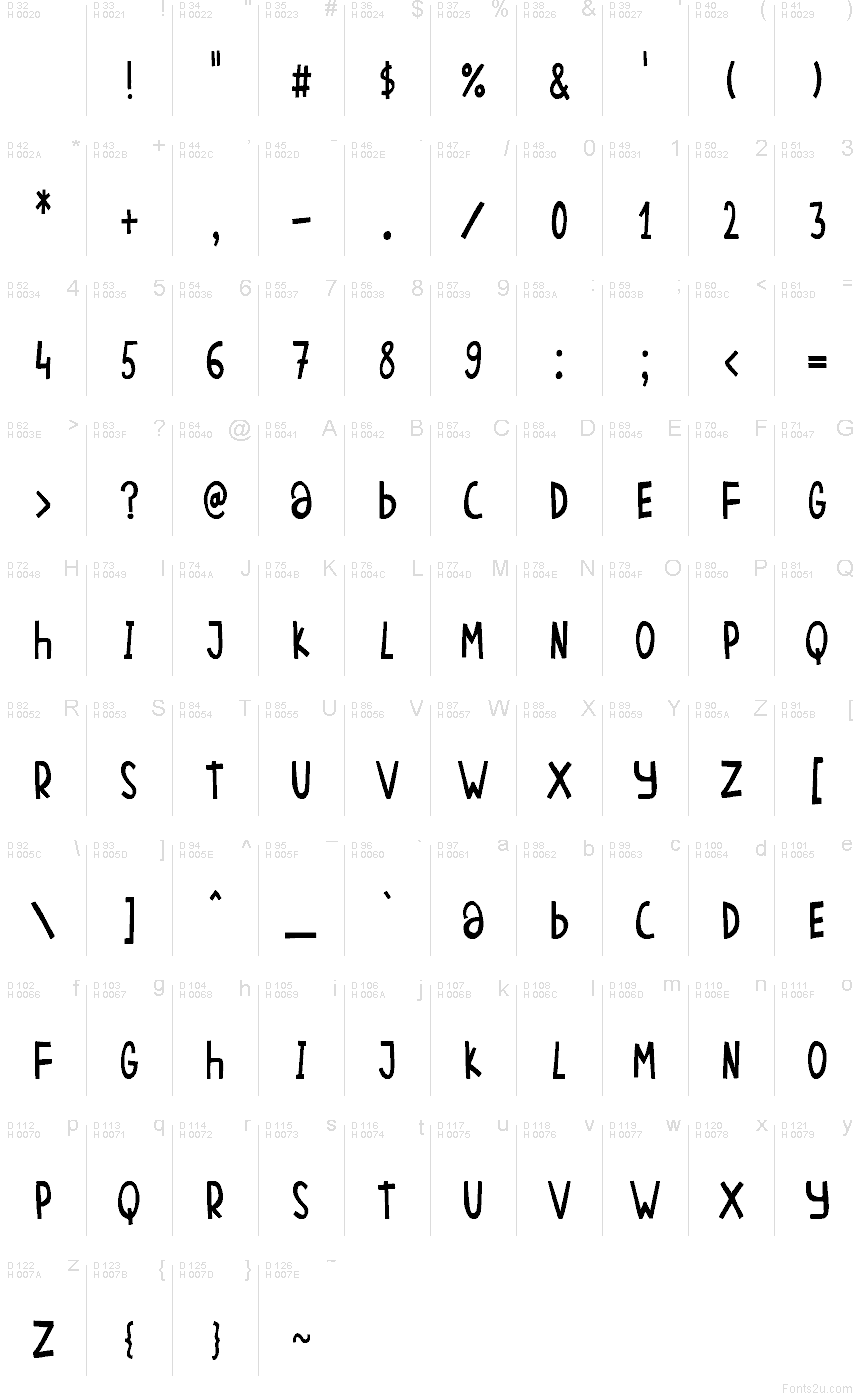
Kids World Channel
Kids World Channel font by Woodcutter is a free cartoon display typeface that feels like it’s been sketched straight from a kid’s TV bumper. Tall, wobbly letters with uneven strokes give it a hand-drawn, energetic look, while the quirky curves keep it light and friendly instead of messy. It reads like playful scribbles done with a thick marker, giving headlines a fun, informal bounce that grabs attention fast.
Using Kids World Channel, you can brand kids’ YouTube channels, educational videos, game interfaces, birthday invitations, playful posters, and toy packaging with the same lively voice. This free font shines when used big and bold, where its subtle irregularities are easy to enjoy. Pair it with a simple rounded sans for body text to keep things readable while letting the cartoon letters handle the personality.